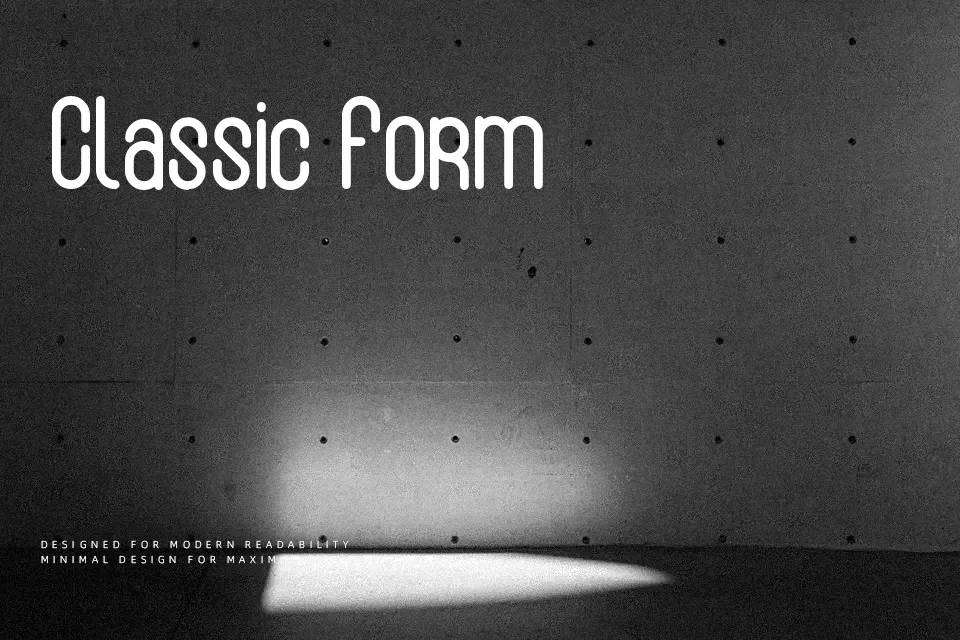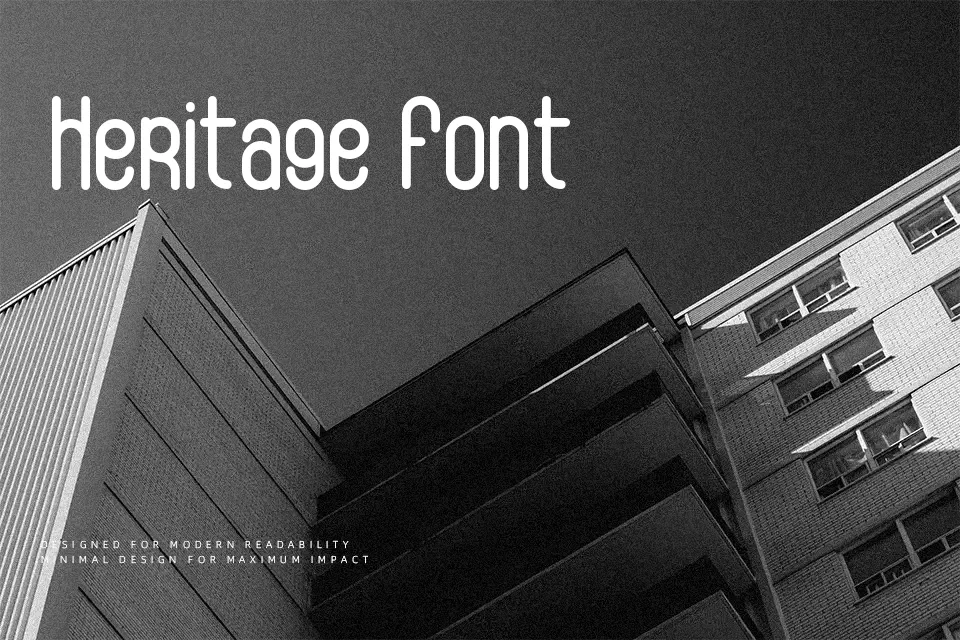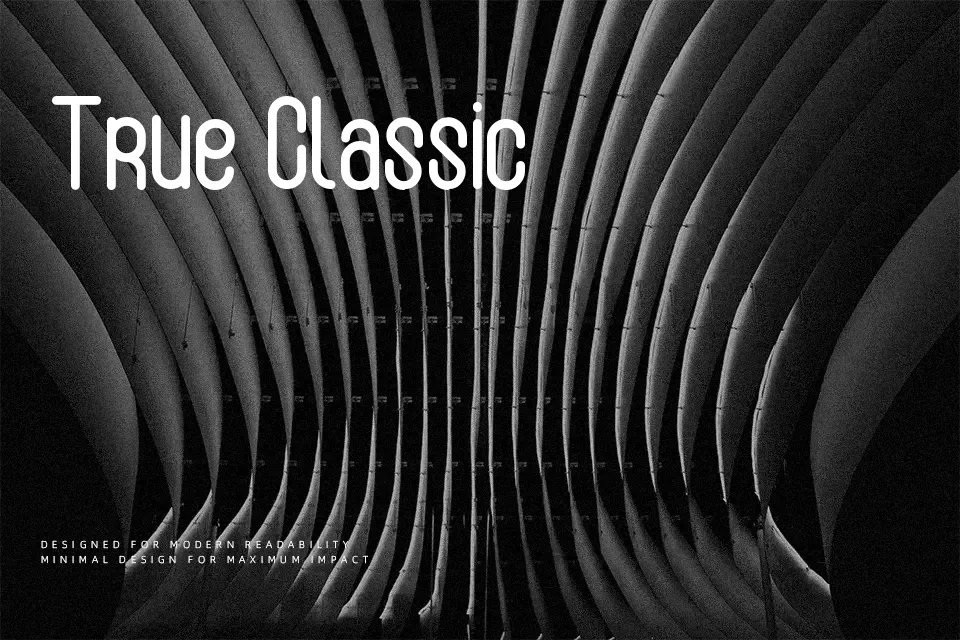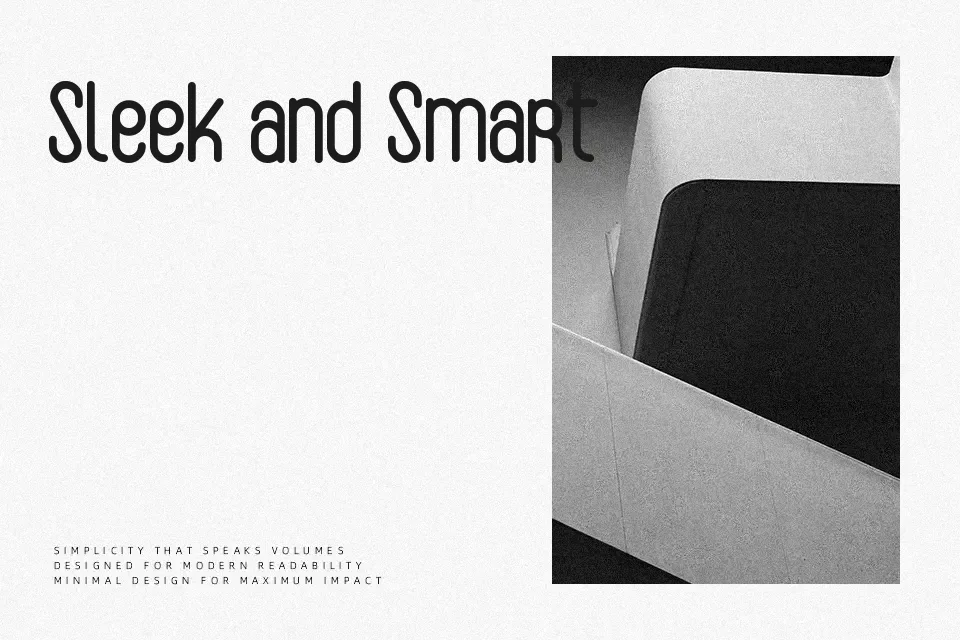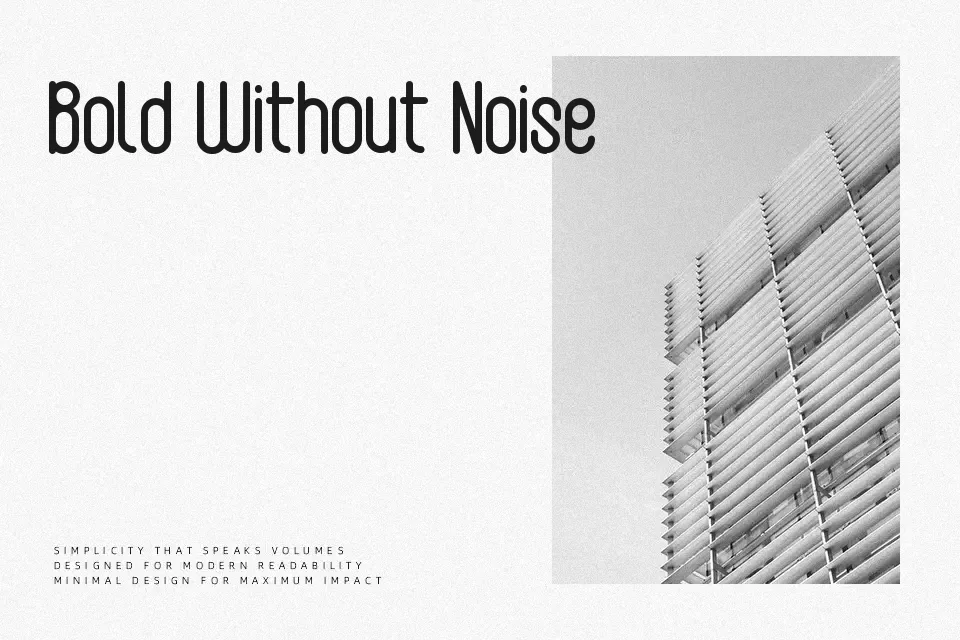
Albeon Round Font
There’s an unpretentious warmth to Albeon Round that shows up immediately in its uniformly rounded terminals and steady stroke weight. Unlike high-contrast serifs, this font leans fully casual—each letterform sits with generous spacing and a consistency that feels designed for display rather than dense text. It works well on product labels, app branding headers, and social media title cards where readability at medium-to-large sizes matters. That said, it struggles below 14pt—fine details in rounded corners lose definition at small sizes, making it a poor fit for footnotes or densely packed layouts. Designers who need a playful but composed font for one-liner headlines will find it handles that role reliably; those expecting range across weights or stylistic alternates will be disappointed by its single-style limitation.
Best For:- Casual brand logo headers
– Food and beverage product packaging
– Social media graphic titles
– Mobile app UI display text
Not Ideal For:- Small-size body text or captions
– Corporate or legal documents
– Multi-weight typographic systems
– Print projects requiring tight tracking
Perfect for branding, logo, and packaging, with a clean and display style.